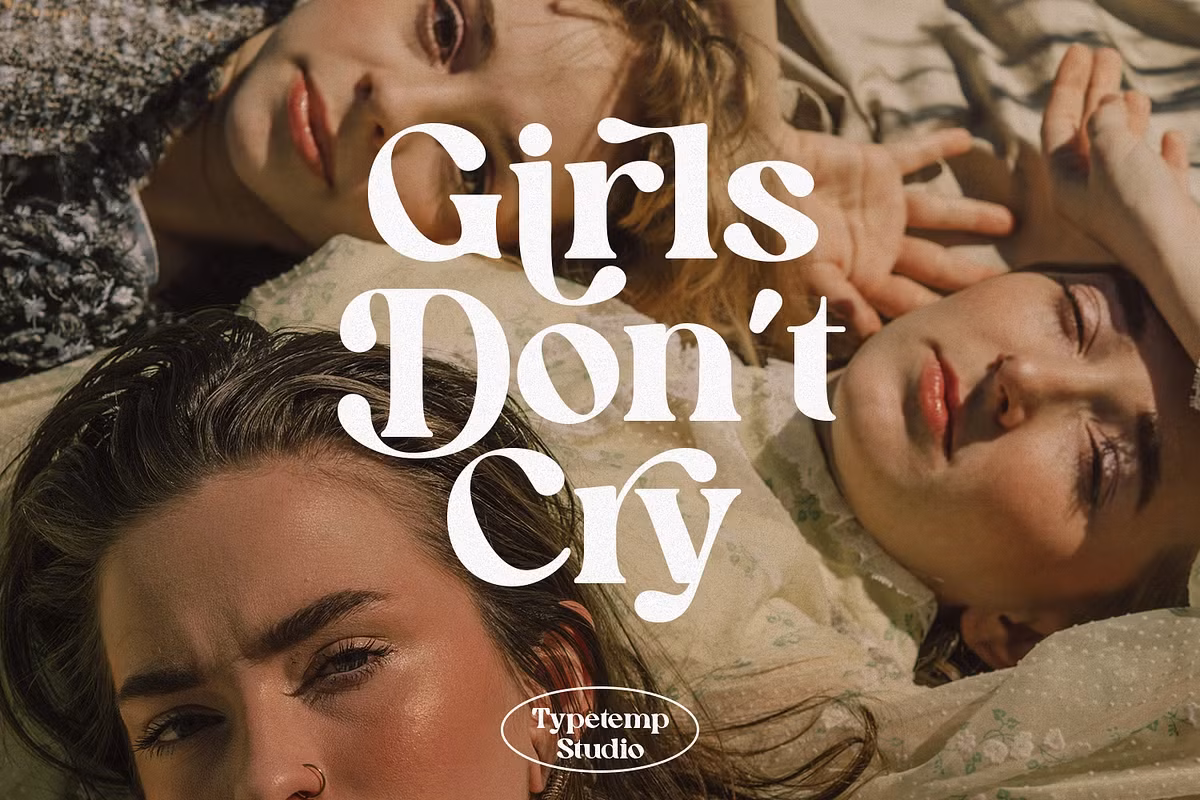
Allenoire - Modern Bold Serif Font Free Download
Allenoire - Modern Bold Serif Font Free Download is a strong and stylish typeface designed to make a bold statement in any design. With its thick, confident serifs and modern aesthetic, this font is perfect for creating impactful logos, branding, posters, headlines, and more. Its geometric structure and sharp edges give it a contemporary look while maintaining the timeless appeal of serif typography. Whether you're designing for a high-end brand, a creative campaign, or a modern event, Allenoire - Modern Bold Serif Font Free Download lets you explore its powerful design in personal projects before purchasing a commercial license. Add sophistication and strength to your designs with this beautifully crafted modern bold serif font.